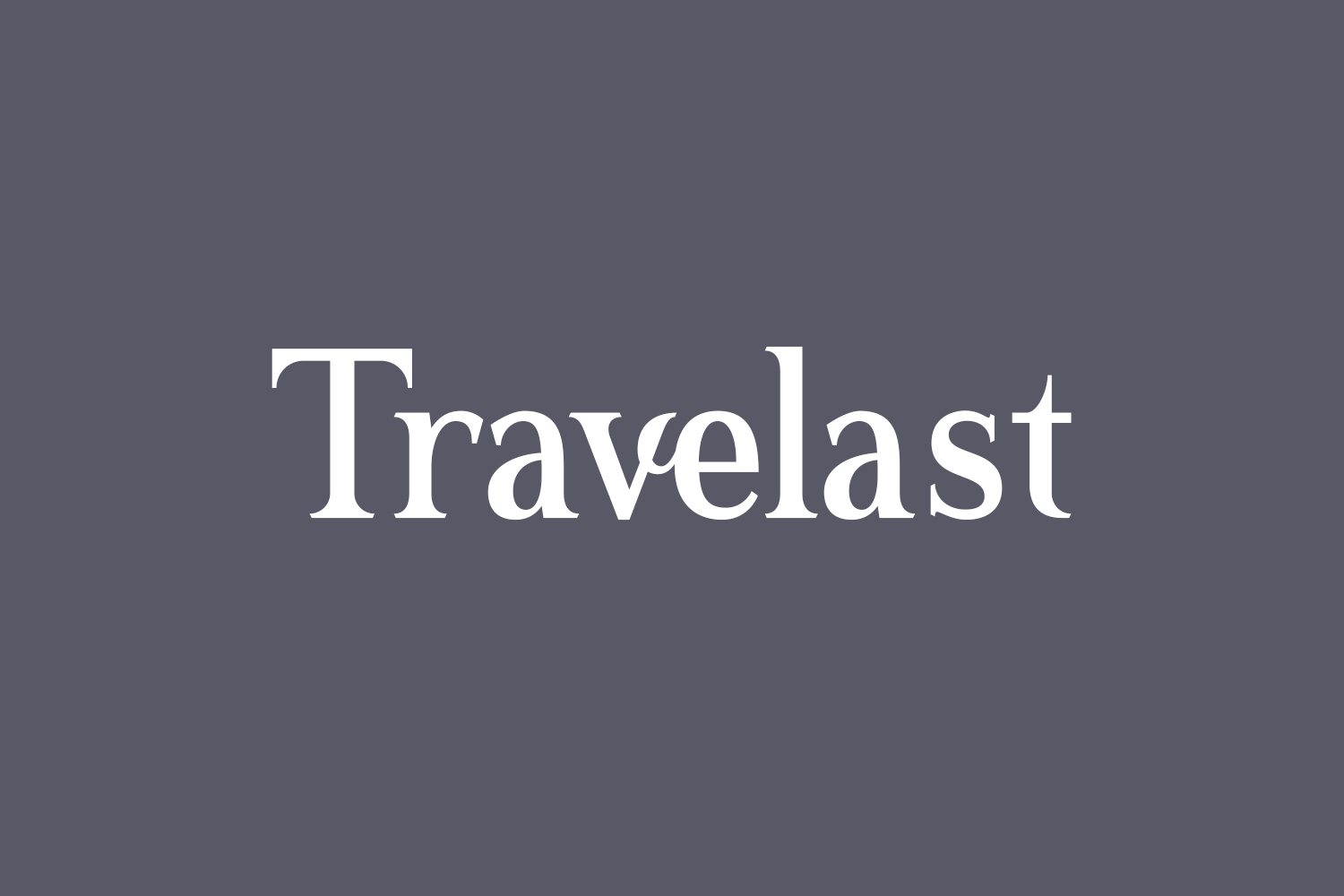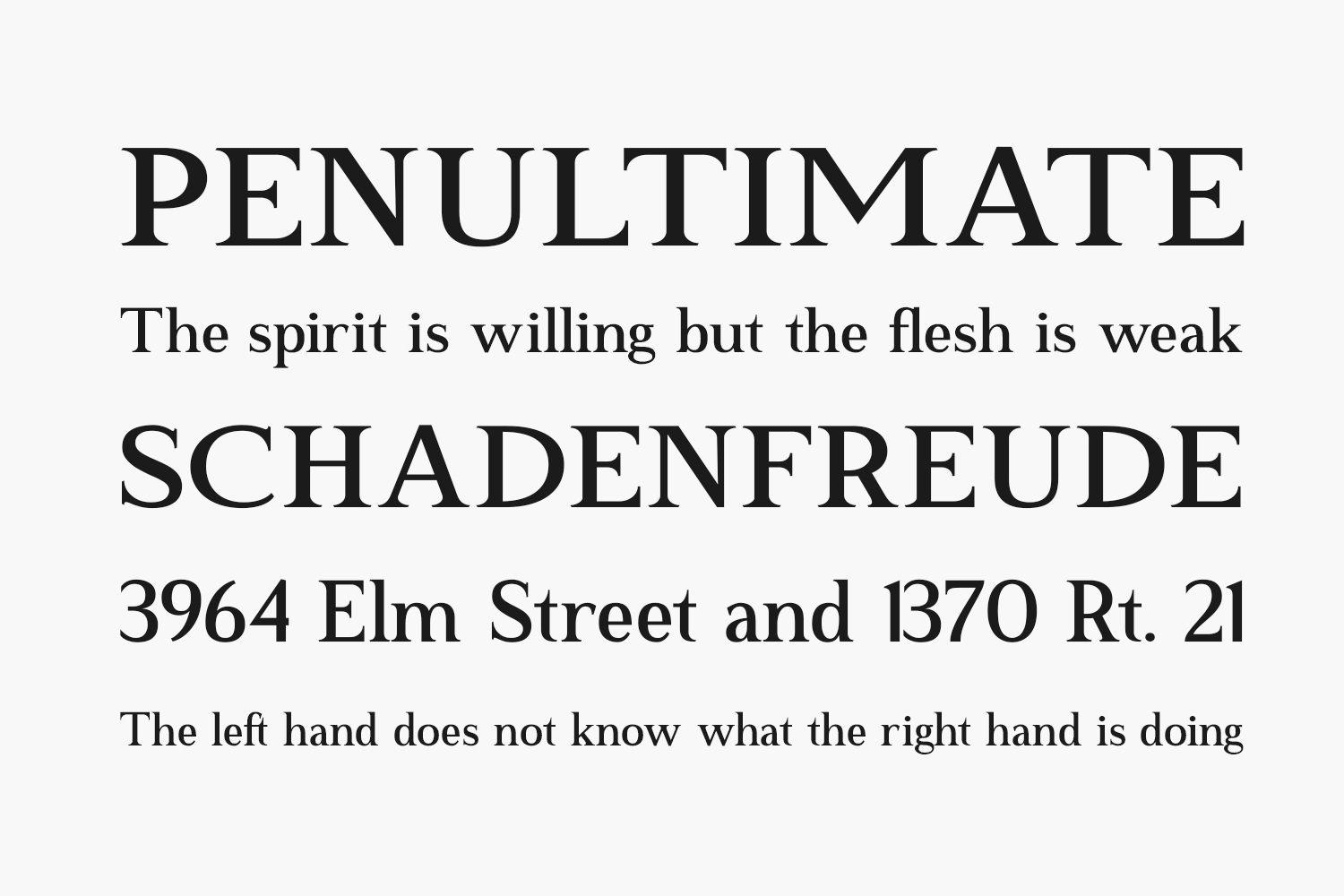
Discover Travelast Free Font, a timeless serif font that exudes sophistication. Ideal for creating elegant and luxurious logos, captivating book or movie titles, prestigious fashion brands, captivating magazines, stylish clothing designs, striking lettering, inspiring quotes, and a myriad of other creative projects. Elevate your design with Travelast. Download the font for free if you need it for personal use or purchase the full version for commercial use.